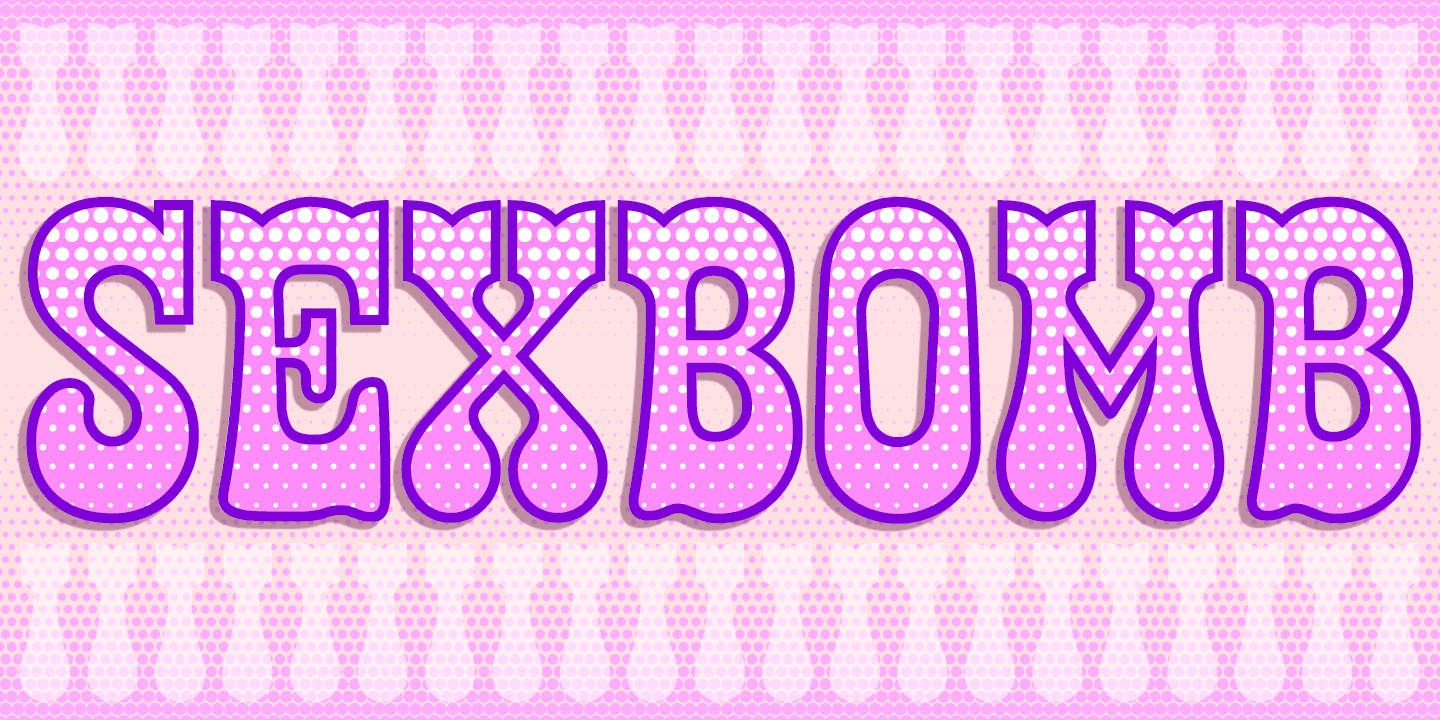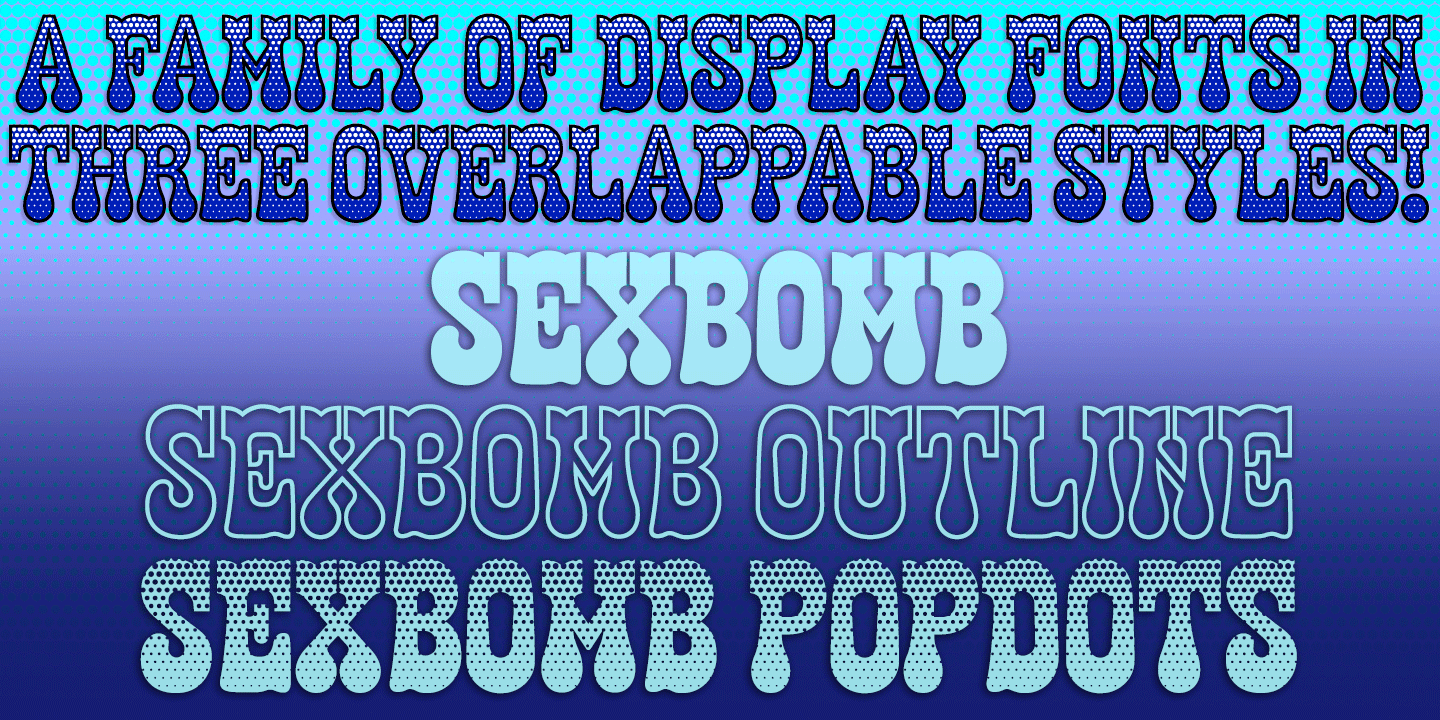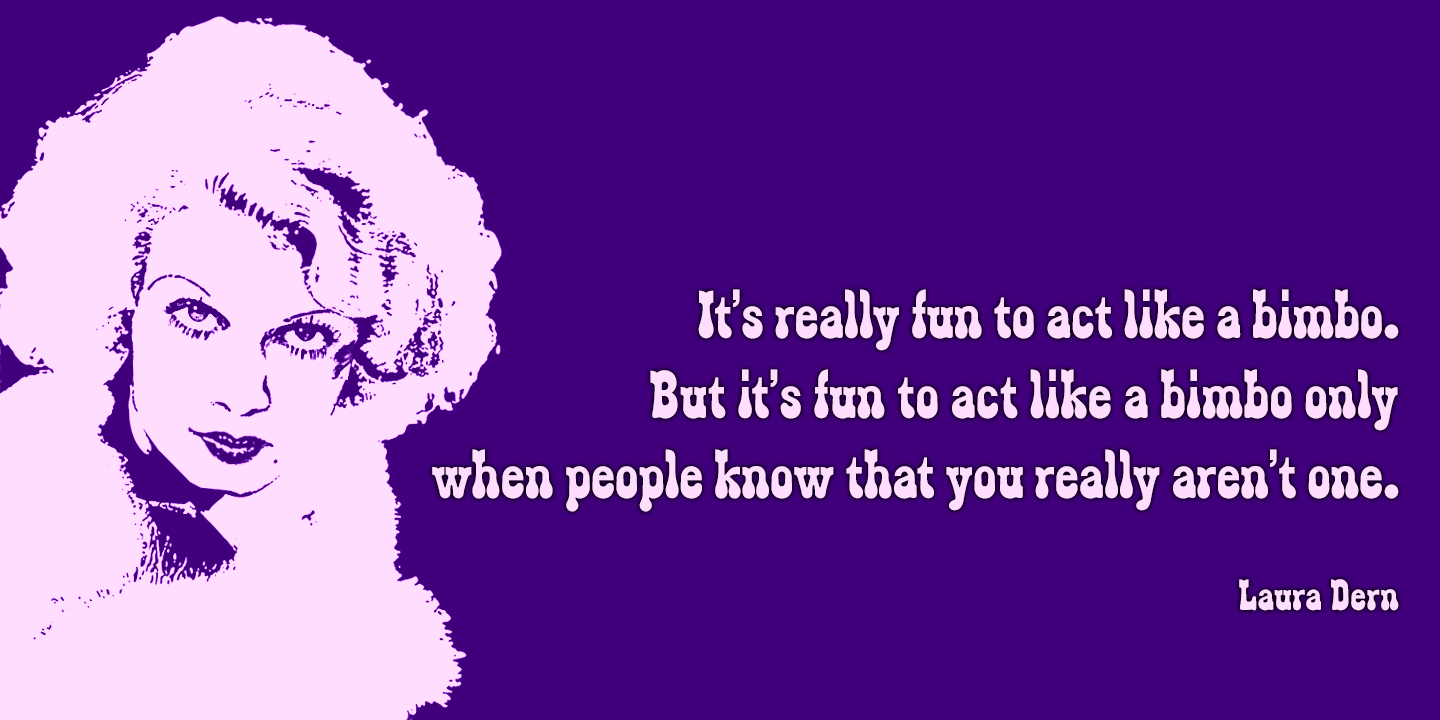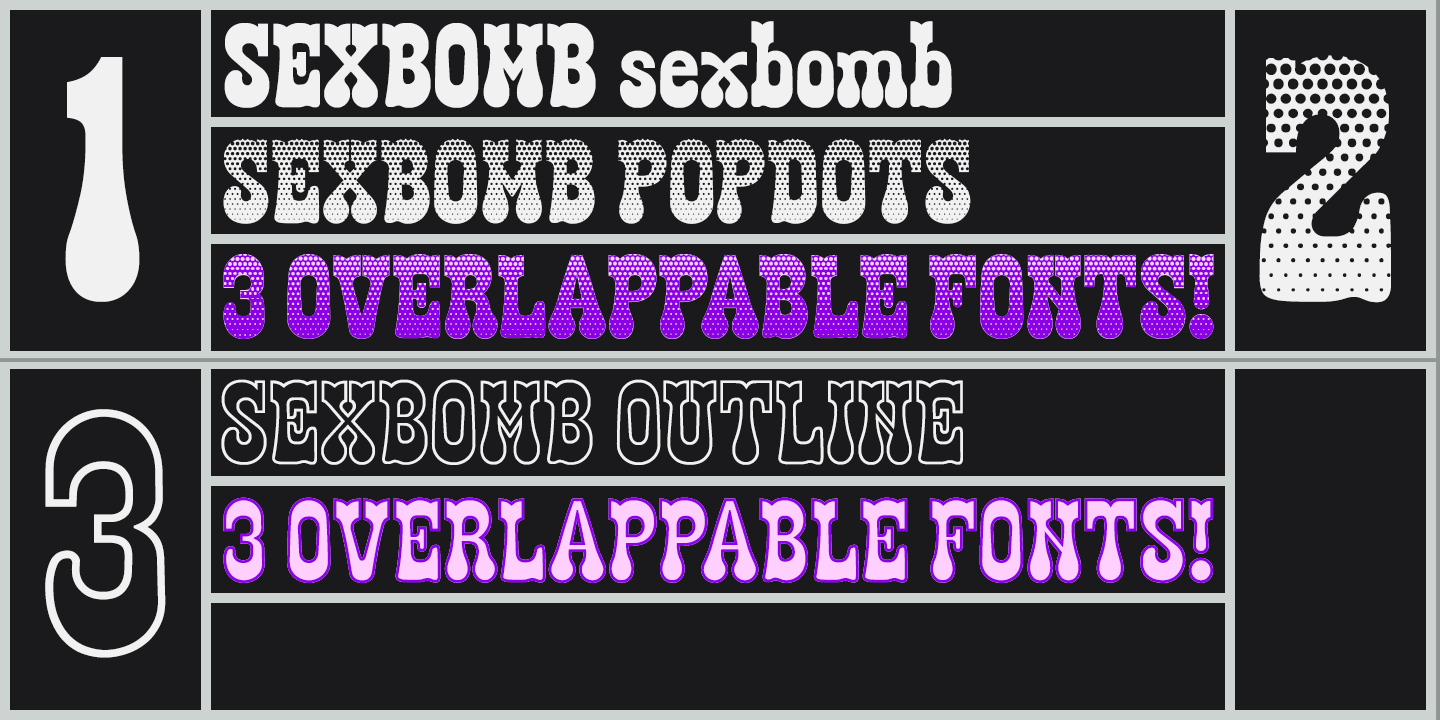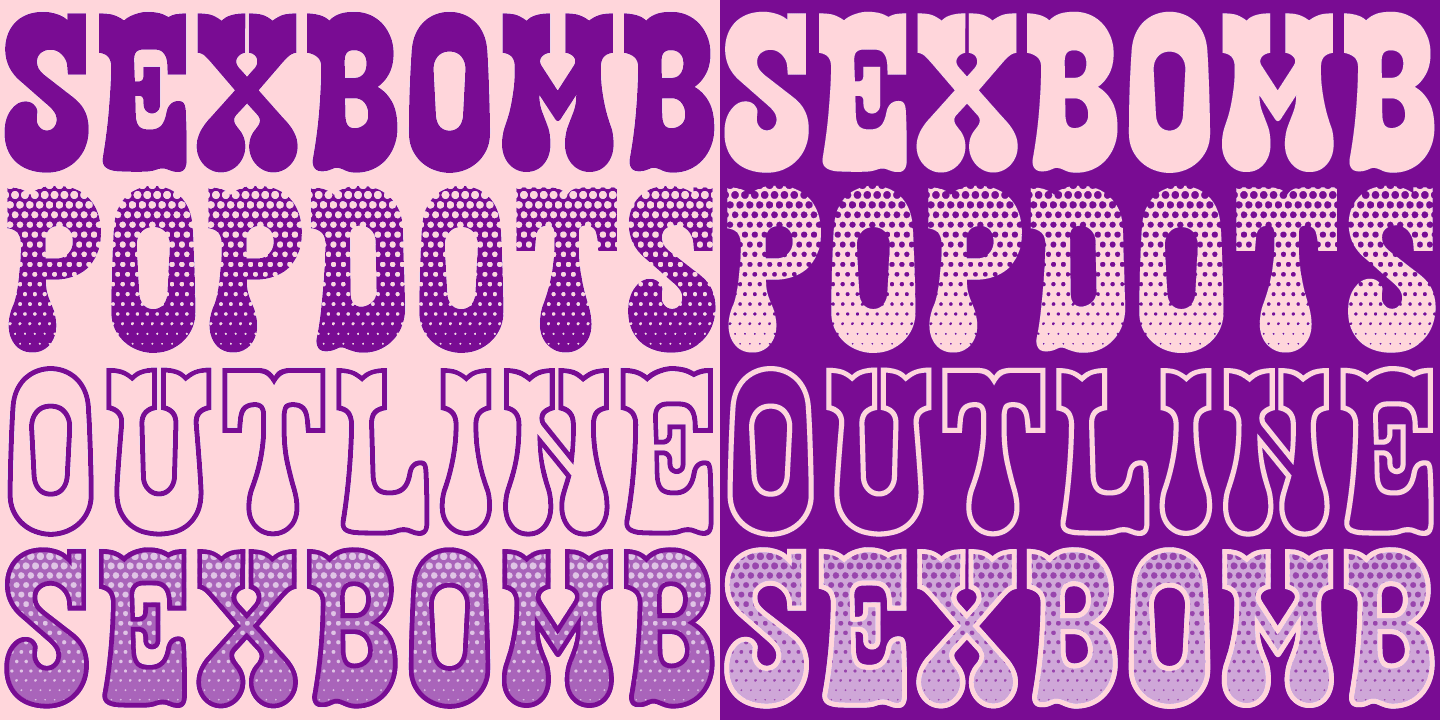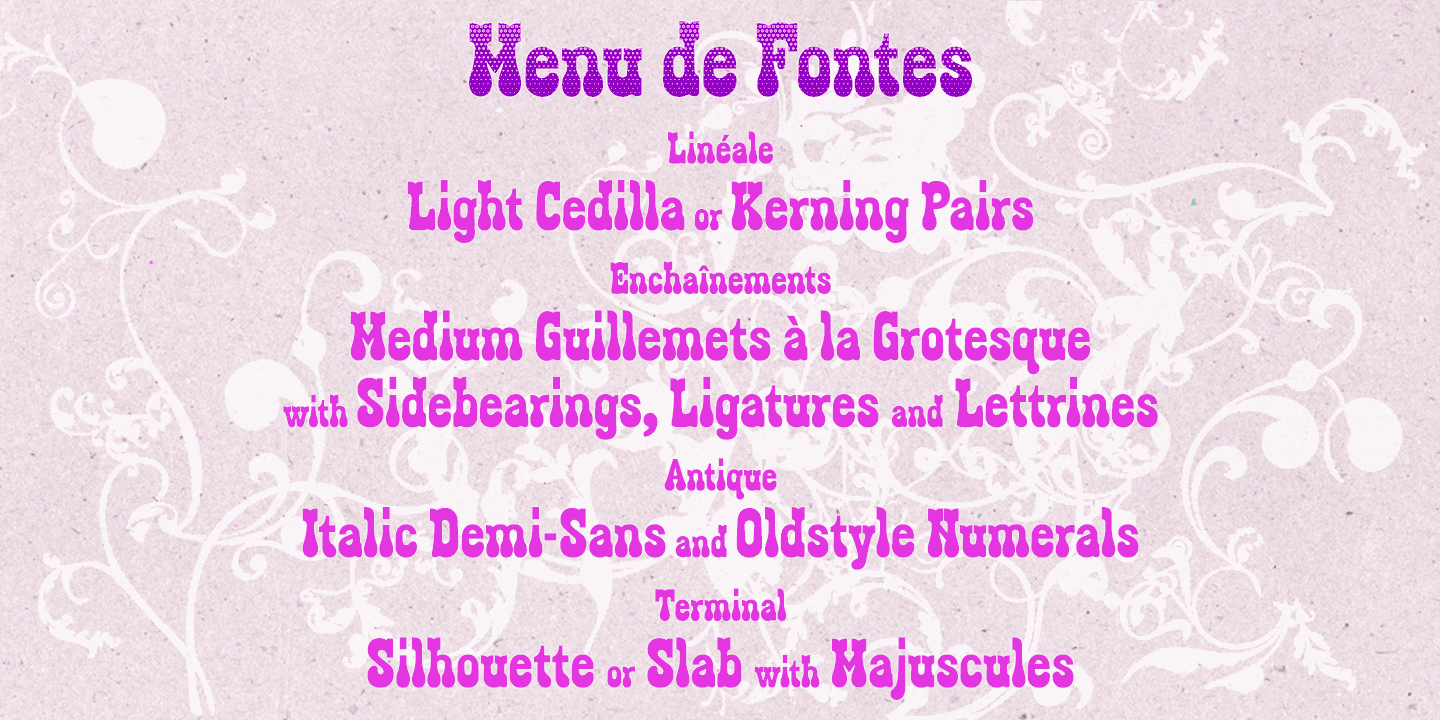
Sexbomb
Font Family by K-Type
SEXBOMB is a frolicsome display face, a hybrid of two styles inspired by the countercultural quality of the K-Type Zabars font. Sexbomb retains the sharp, bifurcated upper portion of Zabars characters, but lower portions morph into sensuous, bulbous curves.
The Sexbomb family comprises three fonts that share spacing and kerning, so can be overlapped to produce bicolor and multicolor effects. In addition to the regular, solid style there is a shaded ?Popdots? style and a matching outline font.